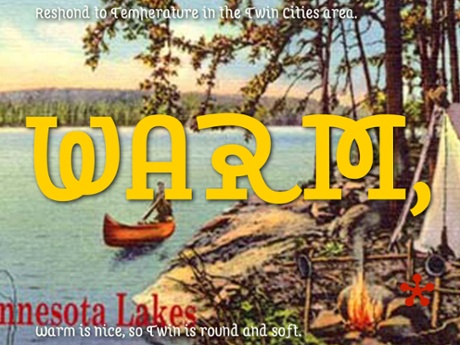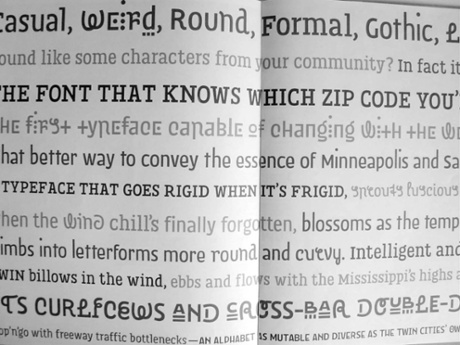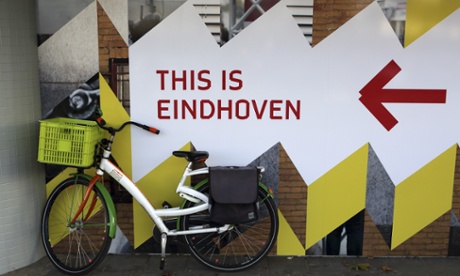
The electronics company Philips was to the Dutch city of Eindhoven what Rolls Royce is to Derby, or Mercedes to Stuttgart. It was founded there, and grew to become the biggest employer. But when from the 1980s on Philips began to shift its operations out of Eindhoven, culminating with the move of its head office to Amsterdam in 1997, it left a void. Like a lover scorned, Eindhoven needed to go out and get itself a makeover. Technology and design sectors blossomed, and many of the old factories became homes to creative start-ups.As part of the effort to rebrand itself, it seemed apt that Eindhoven should turn to an aspect of design – namely, typeface.
The city’s municipality and Eindhoven 365, its marketing department, embarked on a collaborative effort to commission a new city font. They created a virtual design agency, with designers from competing agencies working together. The results can now be seen all over the city.
As the original sketches were made from sticky tape, the corners of the letters in the final design are missing. The result is a slightly rough-around-the-edges typeface. That fits this once-industrial city, says Remco van de Craats, co-owner of one of the city’s design agencies tasked with coming up with Eindhoven’s typeface. Eindhoven, he says, is a city “very much in transition.”
But can a typeface really represent what’s unique about a city? Van de Craats, not surprisingly, thinks so. Type has a lot of effect on the atmosphere of a place, he says, calling it “the voice of the city”: “I think cities that don’t have this very dynamic energy, they don’t feel the need to change their identity.”
That identity, for many of the world’s largest cities, is intimately tied up with typeface. Johnston Sans and Gill Sans, which are used on the London Underground, say “London” even before you’ve read the signs. In New York it’s Gotham, or Helvetica (where once it was Standard) on the subways. The Legible Cities movement, which is creating a new Cyrillic alphabet for Moscow’s transit system, is gaining momentum.
“When typefaces get attached to cities,” explains Dan Rhatigan, a New York-based type designer, “it’s because typefaces become part of people’s everyday experience. People don’t identify typeface necessarily; very few of us can look at something and say what it is, but it has an effect, it’s a personality.”
Though much of this font personality stems from transit systems – Helvetica in New York, or Frutiger in Paris – fonts come from everywhere: Anandabazar Patrika (AKA Linotype Bengali and now effectively the typeface of the entirety of Bangladesh and West Bengal) grew out of a city newspaper in Kolkata. Because Sheffield was home to the type foundry Stephenson Blake & Co, officials attempted to use the company’s Granby Condensed as the city’s official typeface – an attempt that proved difficult in practice and led to the creation of Wayfarer, still visible around the city today. And more are commissioned every year: Stockholm Type is hot off the presses.
But it is small, post-industrial cities that seem particularly eager to, as it were, make a name for themselves. In Chattanooga, a city of 200,000 on a bend in the Tennessee river, typeface designers Jeremy Dooley and Robbie De Villiers set up a Kickstarter to raise funds for a new city font, securing more than $10,000 (£6,600).
Chattanooga, Dooley believes, was the ideal city for such a project. Its small size made it easy for the design community to rally around the project. He also points out: “If you’ve got a very diverse kind of a city that’s a lot more fragmented, there’s going to be a lot more difficulty in coming with one unifying [typeface].” Where bigger cities have become associated with a typeface, it has tended to happen more organically, or via specific projects for transport networks or road signage, rather than through a city-wide project such as Chattanooga’s.
“Rome feels different to London; there’s a certain tangibility,” he says. “And now, as a typeface designer, I see part of it is the typefaces being used. In any city in the world – largely because the graphic designers doing the branding feed off one another – a vernacular develops ... in the same way as an accent, for example.”
In designing the font for Chattanooga, Dooley looked to the city’s Cherokee heritage – the written form of the Cherokee language is still used in the two nearby reserves – and its history as a major railway point. De Villiers, for his part, sought an equal emphasis on the future: “Chattanooga ambitiously wants to see itself as a kind of Silicon Valley alternate,” he says. “In North America they were the first city to have their own gigabit internet. They’ve really been investing in that [broadband] infrastructure and they want people to have that idea about what Chattanooga is and what it wants to be.”
Chartype, the font the pair have created, aims to align all those themes. It is a chunky slab serif with “an 1880s kind of a feel,” Dooley says. “They’re really popular right now with graphic designers in the US, so it’s still contemporary.” The font is now visible all around town: because it’s free, different companies have adopted it, as have the Chattanooga visitors’ bureau and library.
Paul Bailey, a brand consultant at London-based 1977 Design, says it’s exactly by tapping into “what makes this place this place” that makes a typeface work. As one of the most important visual aspects of any brand, typography can be used to “reflect a certain kind of personality”, he says – reflect, he stresses, not create. “You can’t pick a nice, modern typeface if the city is actually really run down. People can quickly see through it. You can’t rebrand something and then tell people ‘This is what your city is like,’ because if it’s not, they’ll just say ‘That’s rubbish, it’s not like that at all.’”
But you can, Bailey says, use fonts to signal “where a city brand is moving to”. That’s what a team at the University of Missouri–St Louis are hoping to achieve by raising funds to design a typeface called St Louis. According to Jennifer McKnight – an assistant professor and designer at the university who is running the project with Terry Suhre, the university’s gallery director – the city of St Louis was one of the nation’s top type-founding cities in the late 19th century, and played a key role in the industrialisation of type-founding. She and Suhre now want to tap into this heritage, via a competition to design a new typeface, but also to “suggest a way that design might be the suggested way to solve our city’s problems”.
“Some say the region lives in the past,” McKnight says. Just like Eindhoven, St Louis has been hit hard by the loss of manufacturing – in this case the closing of the local Ford plant and big cuts at Anheuser-Busch. “Many of us are wondering how to reframe or rename St Louis into a city on the rise, instead of a city whose time is past. With the rise of interactive design, design that doesn’t need to be made in a hub city, we were hoping in this project that perhaps design could be a player in how we make our city grow.”
But while it’s clear that typography, as one manifestation of design, can and has done a lot for these smaller cities, it cannot be the whole solution. “A new typeface in itself isn’t going to change a city,” says Bailey. “But it might help change the mindset of the people in a city and inspire them to make the change themselves.”